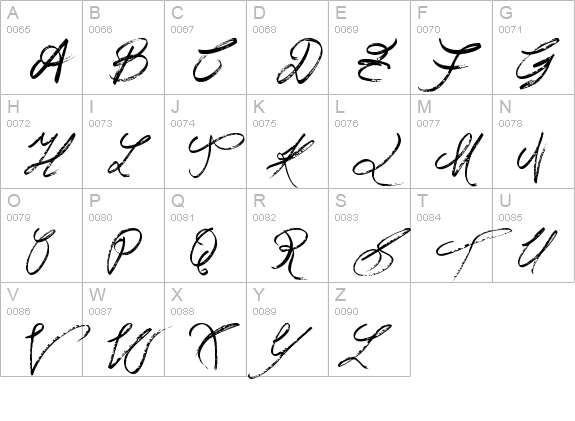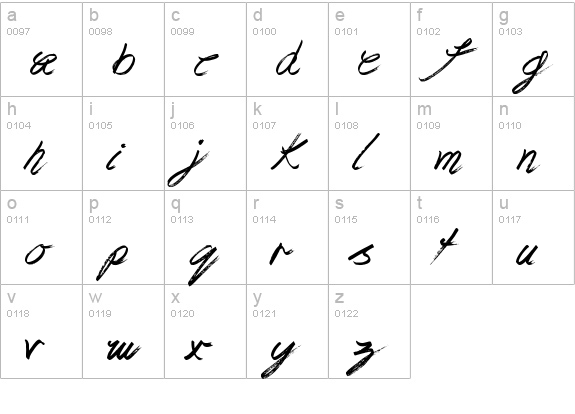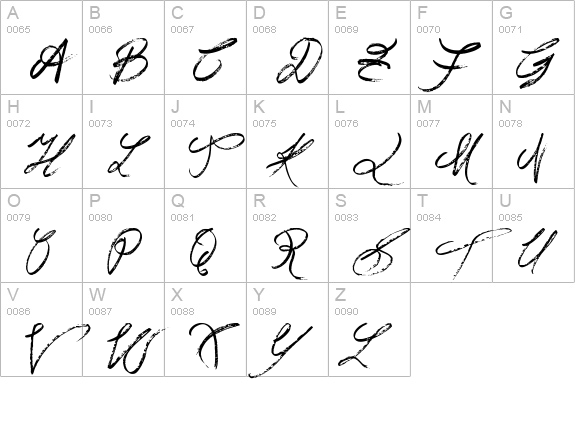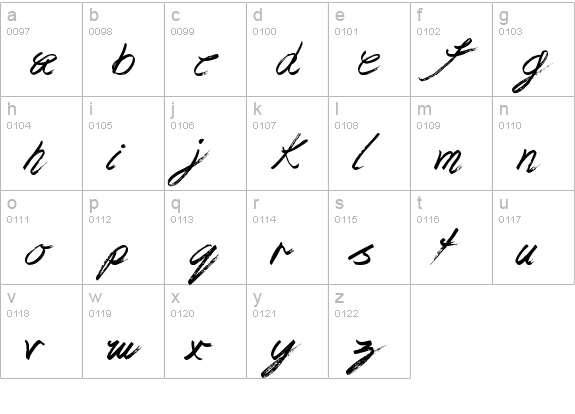
Great Stuff Font Details
Introducing Great Stuff, a remarkable font that exudes creativity and charm. With its clean lines and elegant curves, this typeface is perfect for adding a touch of sophistication to any project. Great Stuff is a versatile font that can be used for a variety of purposes, from branding and logos to headlines and body text. What sets Great Stuff apart is not just its stunning aesthetics, but also the fact that it is available for free. Yes, you heard it right – this incredible font can be freely downloaded at FontsMarket.com. Whether you're a professional designer or a casual enthusiast, Great Stuff offers you the opportunity to elevate your work without breaking the bank. Designed with meticulous attention to detail, Great Stuff captivates with its harmonious proportions and impeccable letterforms. The balanced spacing and graceful strokes make this font a joy to work with, ensuring that your designs will always have a polished and professional look. Great Stuff is the epitome of versatility, effortlessly adapting to any project or style. Its wide range of weights and styles allows for endless possibilities, whether you're creating a bold and impactful logo or a delicate and refined invitation. With this font at your disposal, the only limit is your imagination. Discover the beauty and versatility of Great Stuff by downloading it for free at FontsMarket.com. Join the ranks of countless designers who have already embraced the magic of this font and let your creativity soar. With Great Stuff, every project becomes a masterpiece. So why wait? Start creating with Great Stuff today and unlock a world of design possibilities.